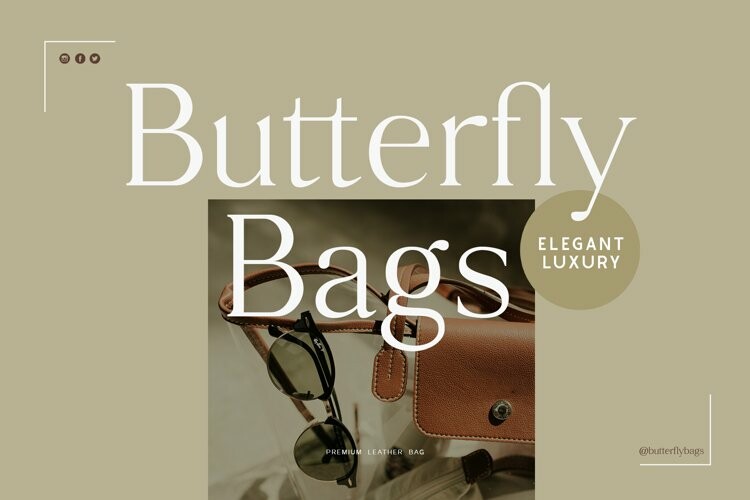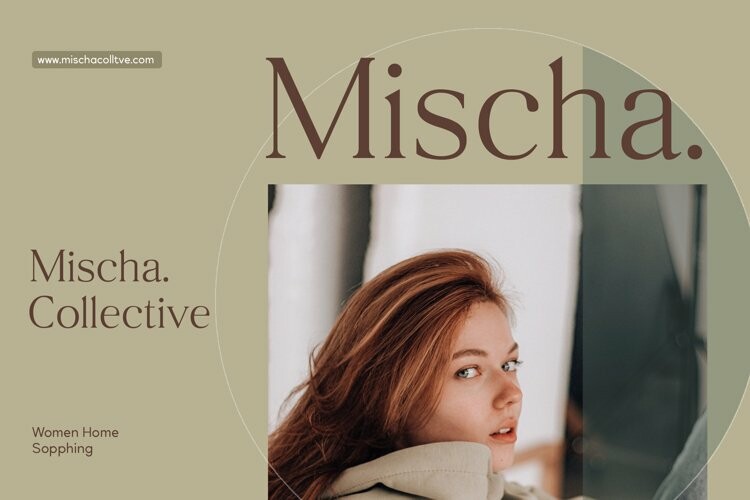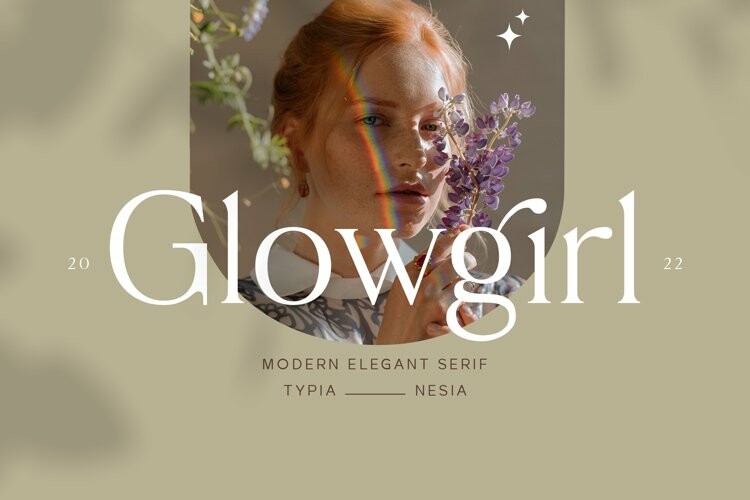
Glowgirl Font
Glowgirl FontGlowgirl – Modern Elegant Serif – Beauty Lovely Serif – Expressive Luxury Font
Glowgirl is perfect for your up coming projects. Such as luxury logo and branding, classy editorial design, woman magazine, cosmetic brand, fashion promotional, art gallery branding, museum, historical of architectural, boutique branding, stationery design, blog design, modern advertising design, card invitation, art quote, home decor, book/cover title, special events and any more.